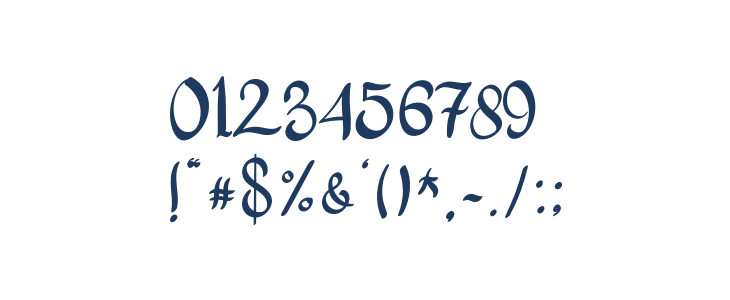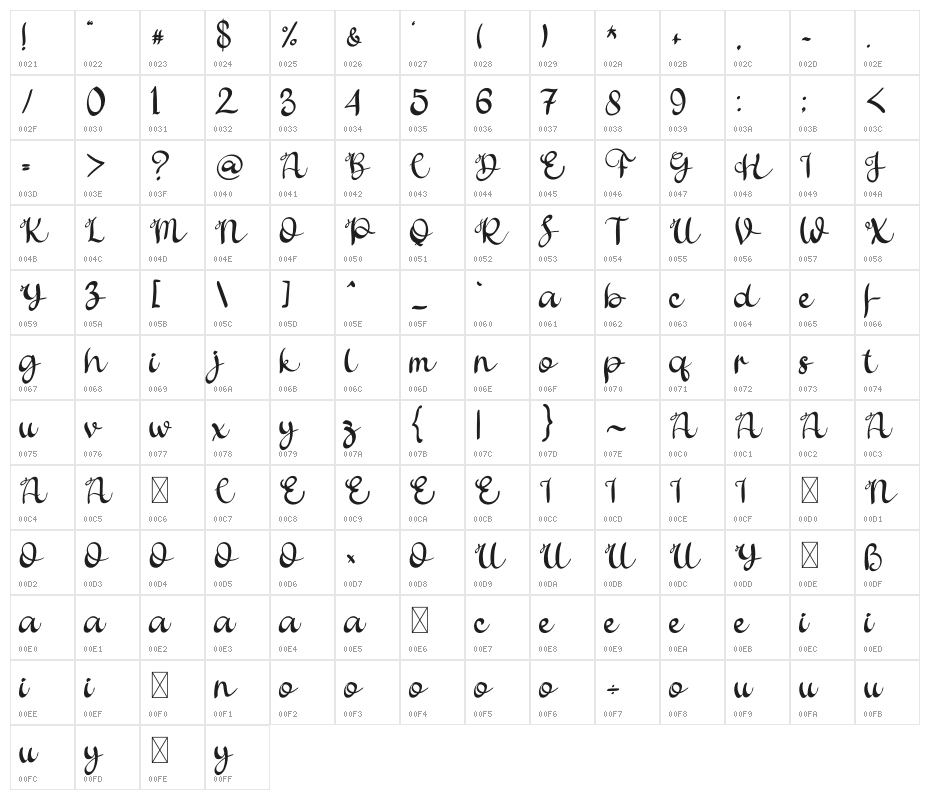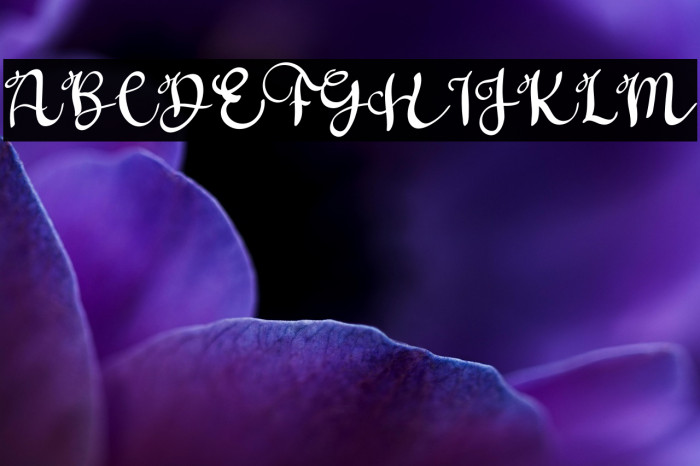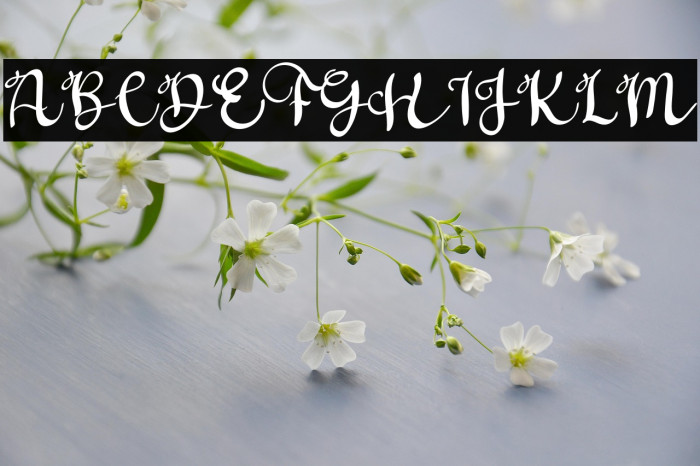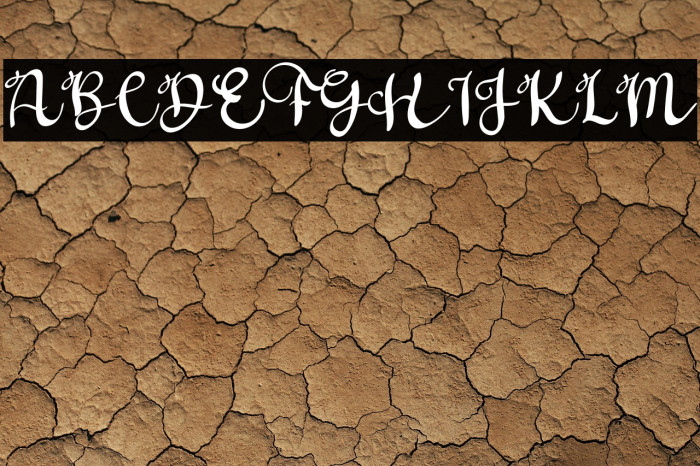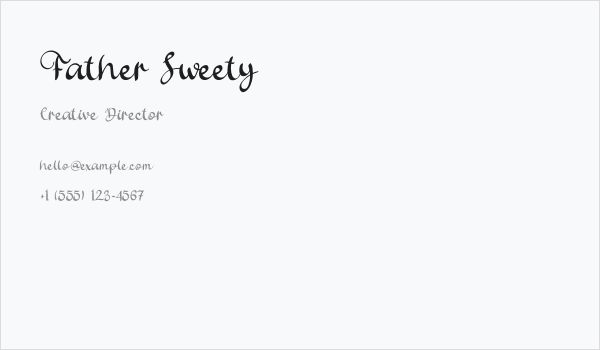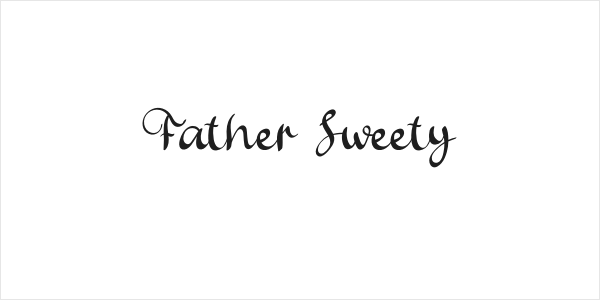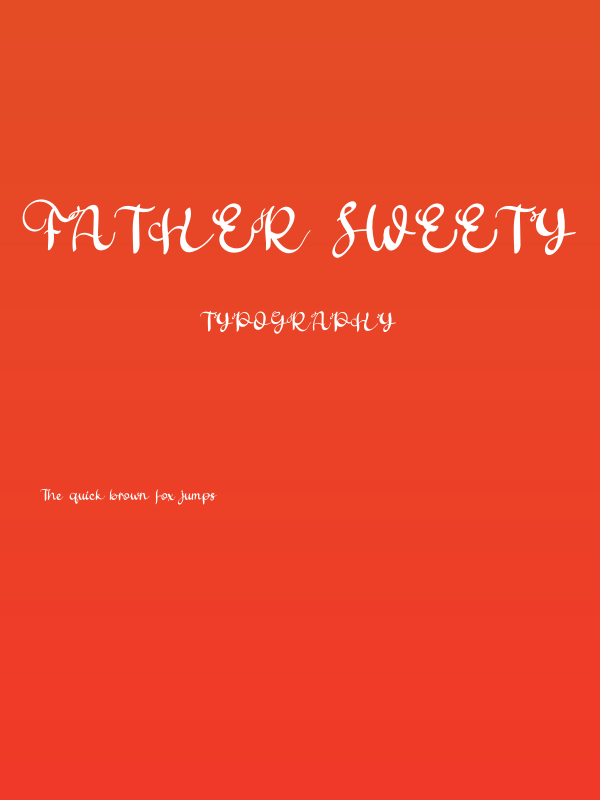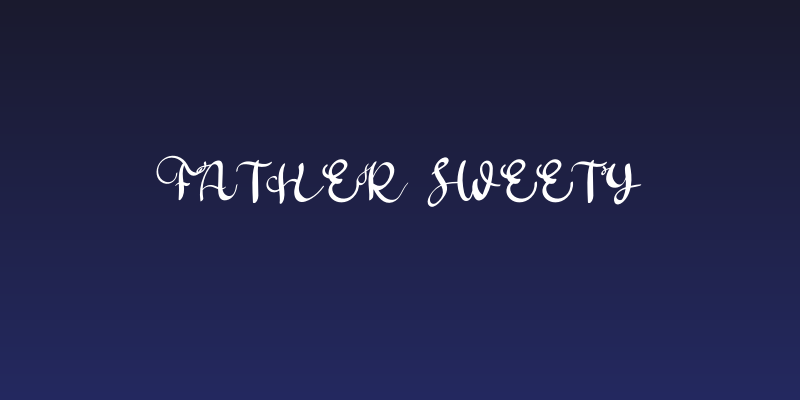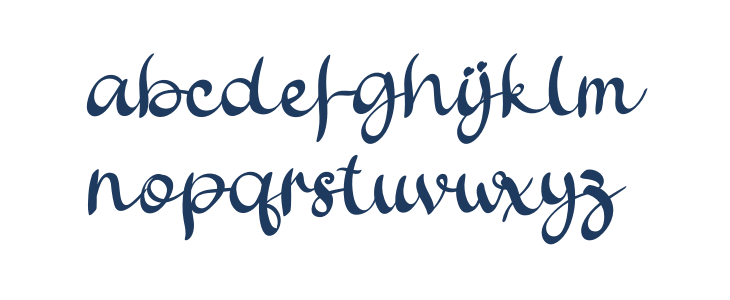
Father Sweety Font
Father Sweety Description
This font features a whimsical and playful script style, characterized by its flowing, cursive letters that exhibit a sense of elegance and charm. The uppercase letters are ornate, with decorative swirls and loops that add a touch of sophistication. The lowercase letters maintain a consistent fluidity, enhancing readability while retaining an artistic flair. Numbers and special characters are designed to complement the overall aesthetic, with a balance of curves and lines that ensure visual harmony. The font's unique style makes it suitable for creative projects that require a personal and artistic touch.
| Proposed Projects | Ideal for wedding invitations, greeting cards, branding, and artistic projects. |